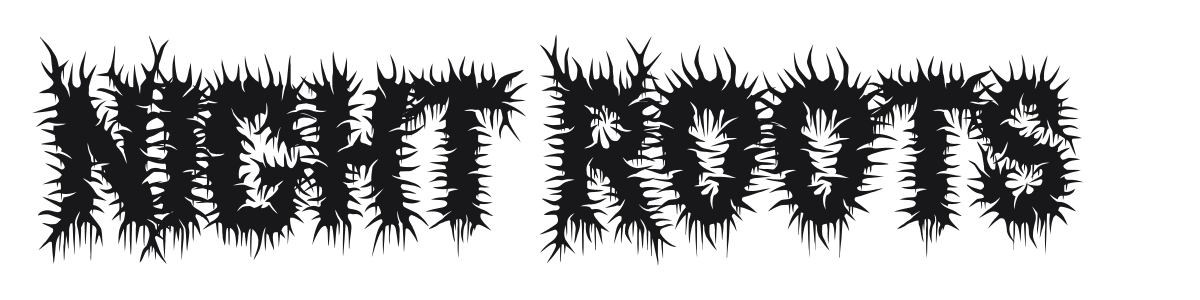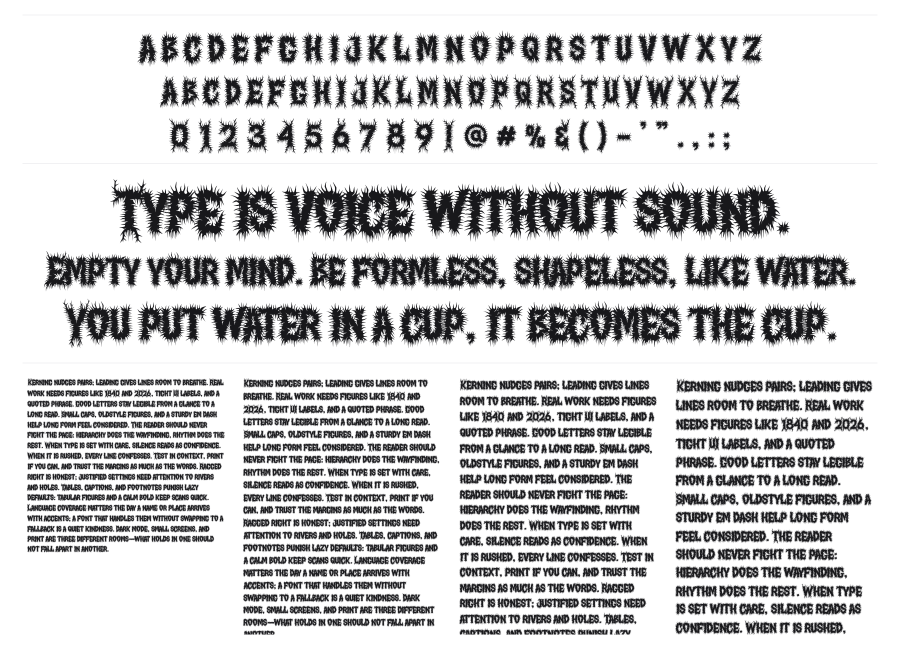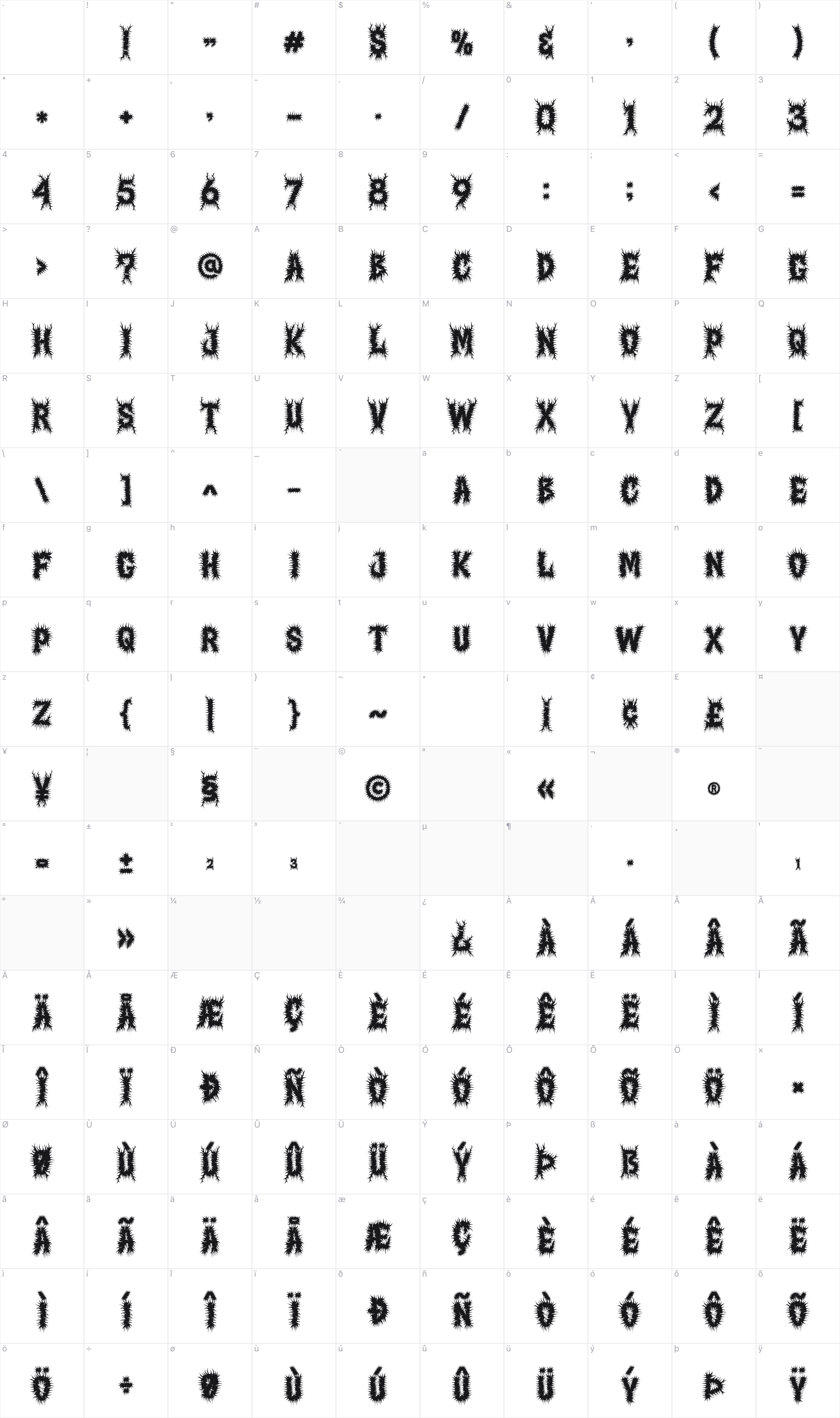
Night Roots
Night Roots is a brutal black metal display font from Shanaf Studio, where every character is engulfed in dense, barbed spikes that obliterate clean edges and push the letters toward pure graphic aggression. The underlying forms are heavy and blocky, drawing from blackletter tradition, but the distressed texture takes over completely. Bands, horror brands, and apparel designers working in dark aesthetics will find exactly what they're looking for here.